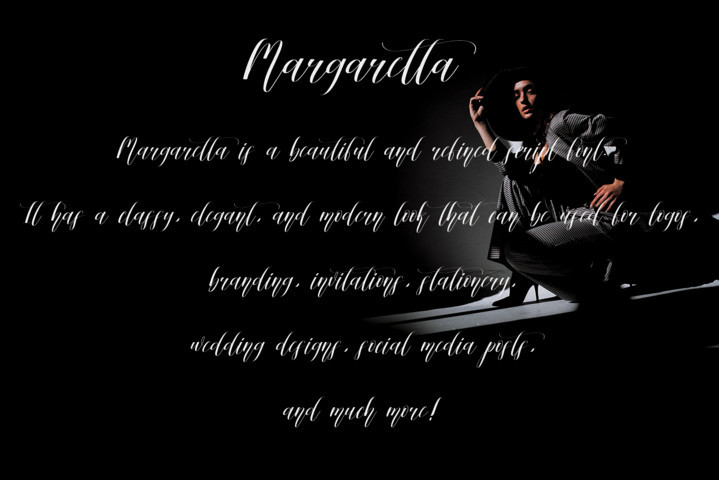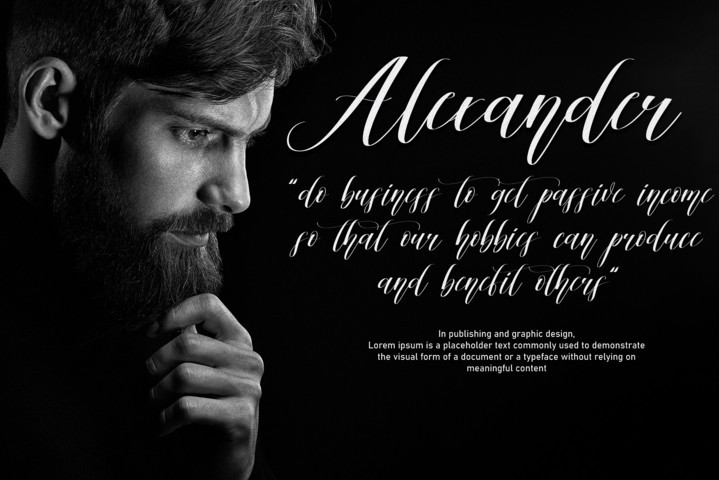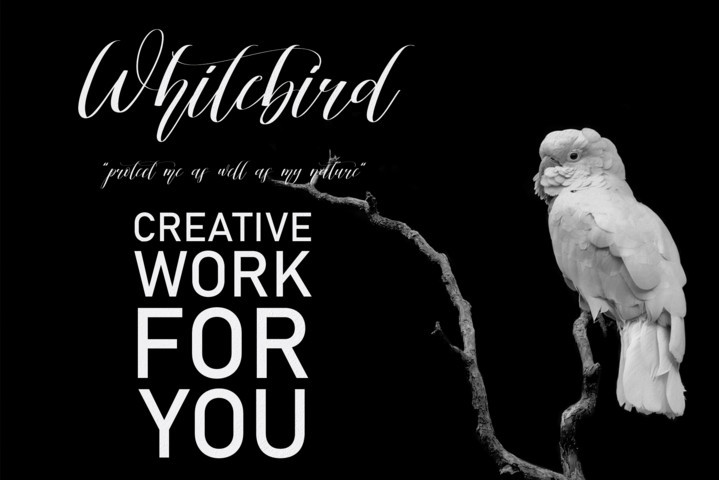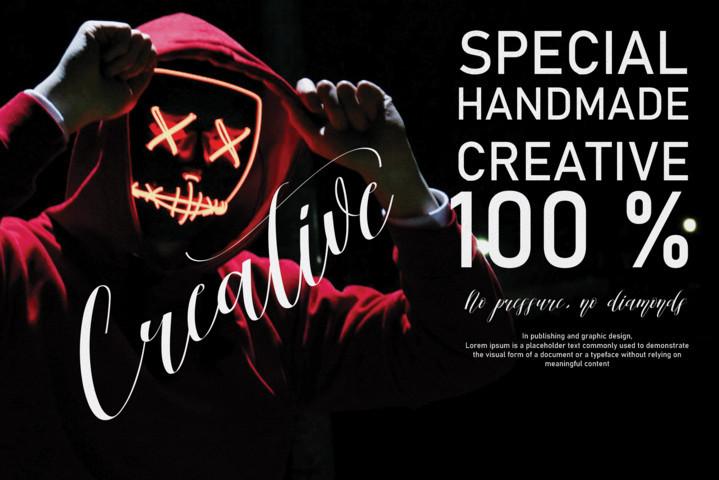
Margaretta Script Font
Margaretta Font is a magical script font carefully created with a touch of elegance. Whether you’re looking for fonts for Instagram or calligraphy scripts for DIY projects, this font will turn any creative idea into a true piece of art!